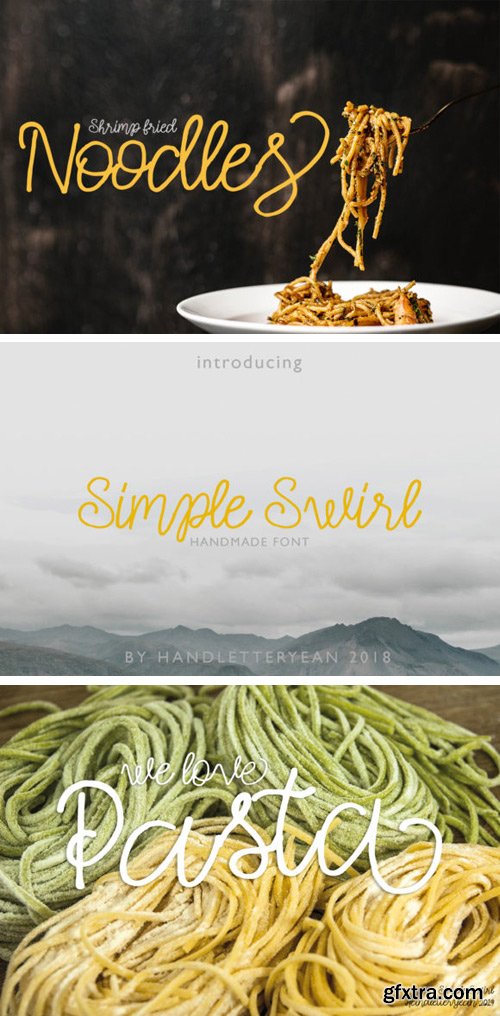
Simple Swirl Font Family
The Simple Swirl is a handwritten font with simple swirls on each character. It has a variety of unique handmade outcomes that can be combined together with a large range of designs.